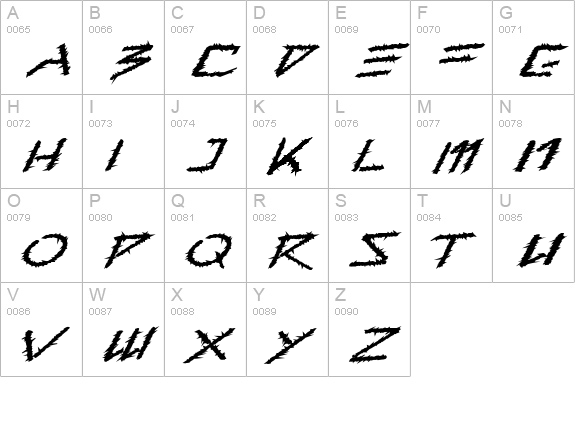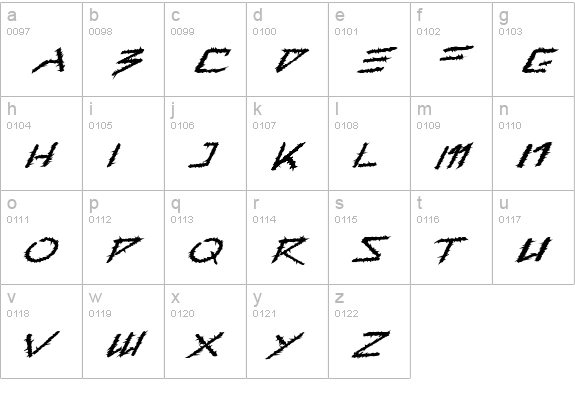
Barbed Type font is a stunning display font that exudes a sense of edgy sophistication. Its sharp, angular design creates a bold and dynamic presence, making it perfect for headlines, logos, and other eye-catching design projects. The intricate details of the barbed elements add a unique and modern touch to any text. What sets Barbed Type font apart is not just its striking aesthetics, but also the fact that it is available for free download at FontsMarket.com. This means that designers and creatives from all backgrounds can easily access this versatile font to elevate their work without any cost. Whether you're working on a branding project, poster design, or social media graphics, Barbed Type font is sure to make a powerful statement and leave a lasting impression. Unlock your creativity and download Barbed Type font today to add a touch of boldness and sophistication to your designs.